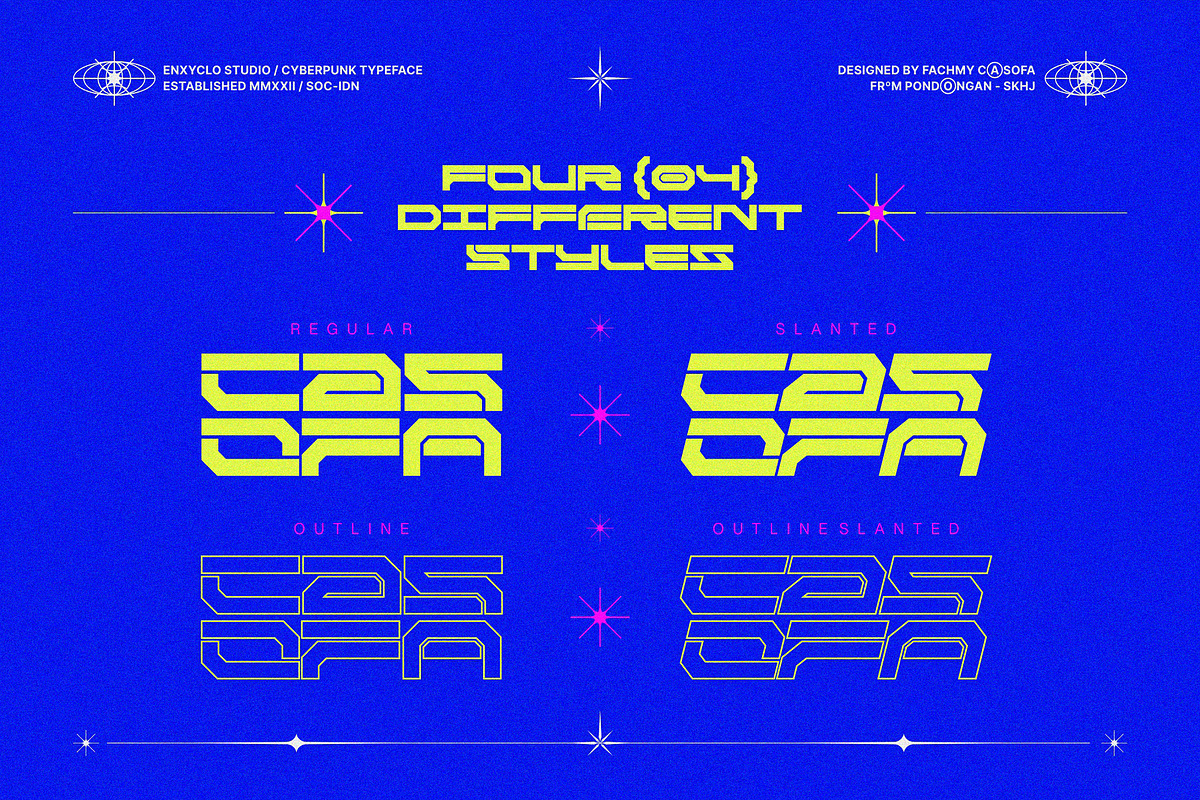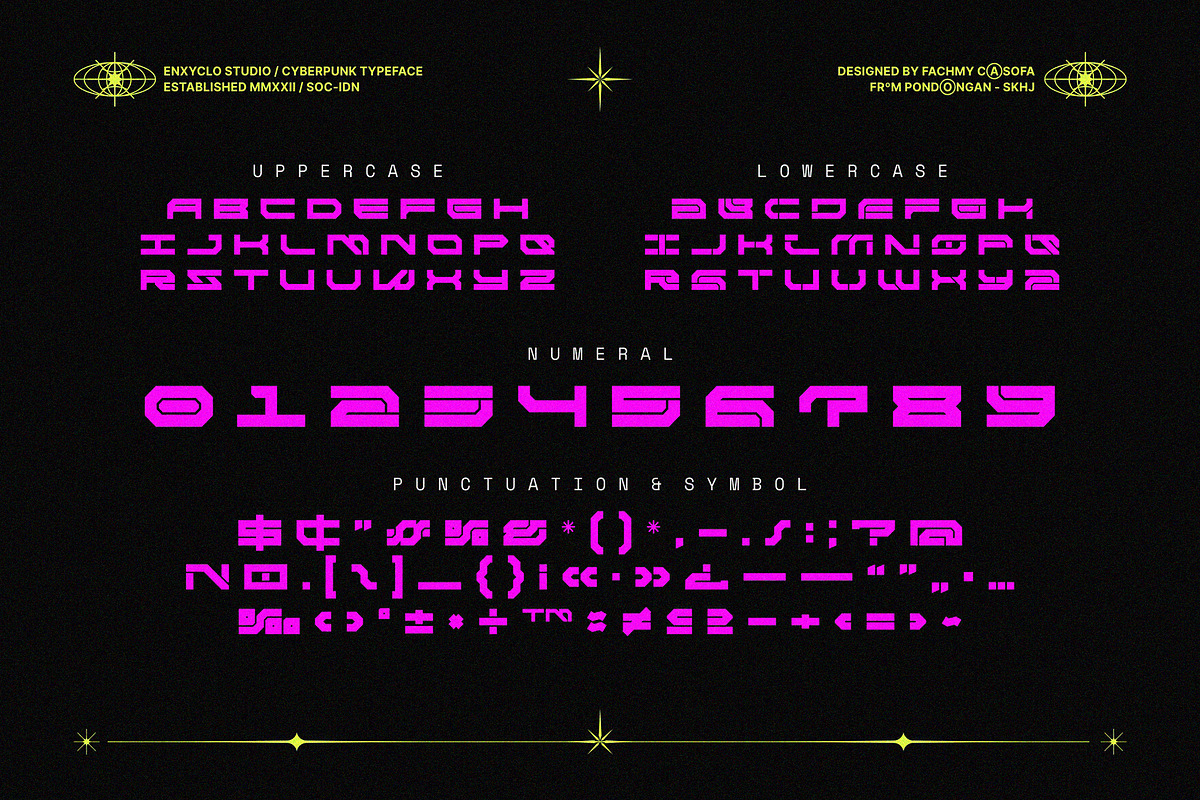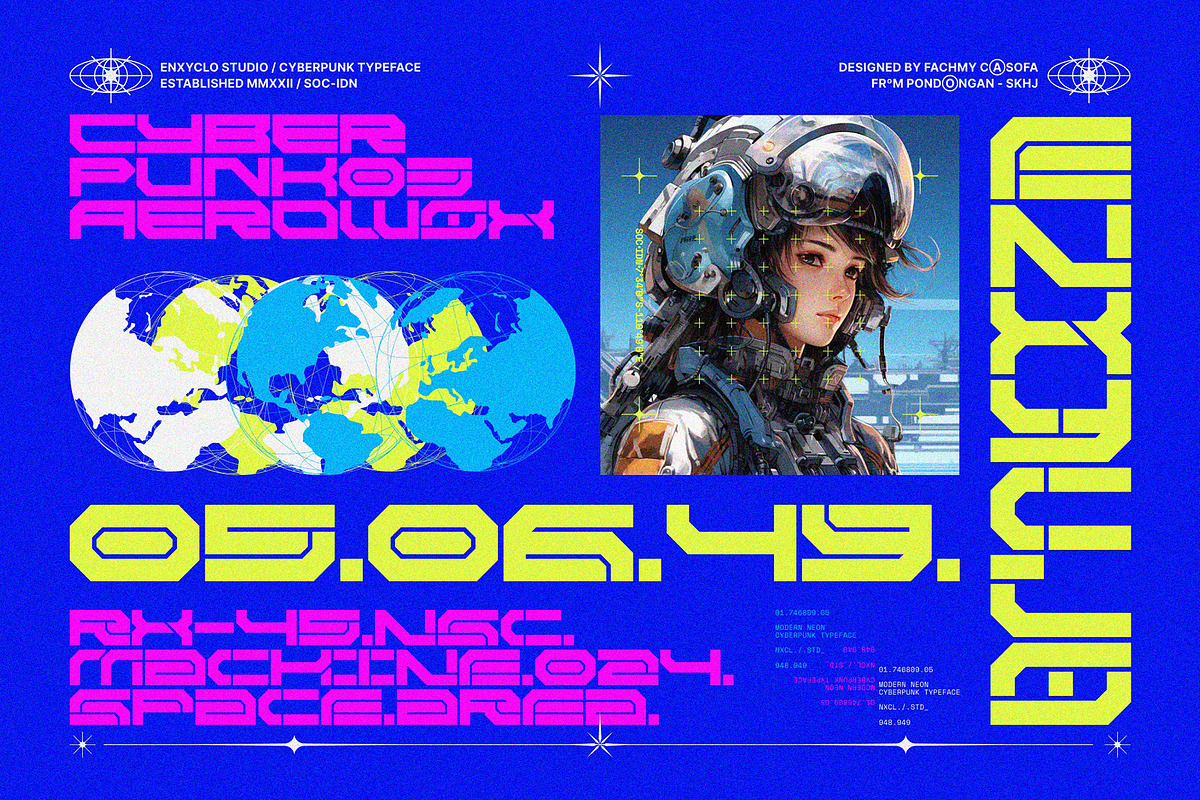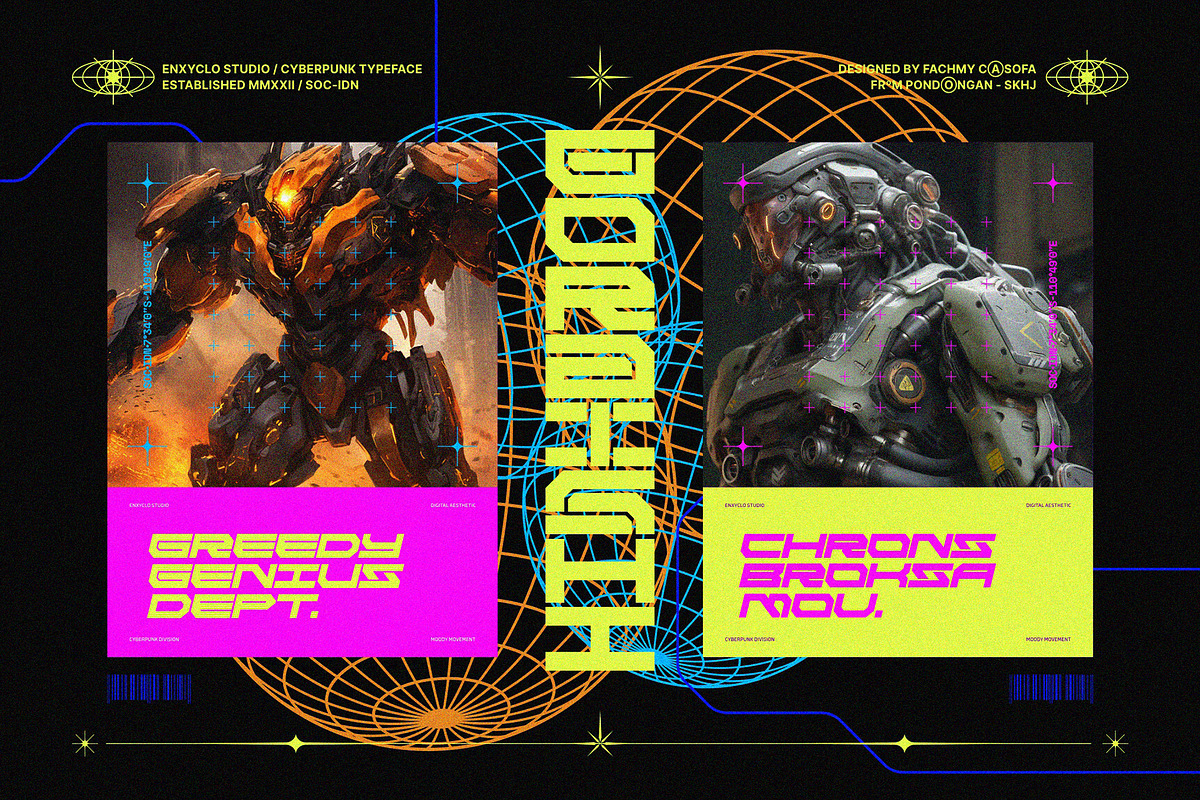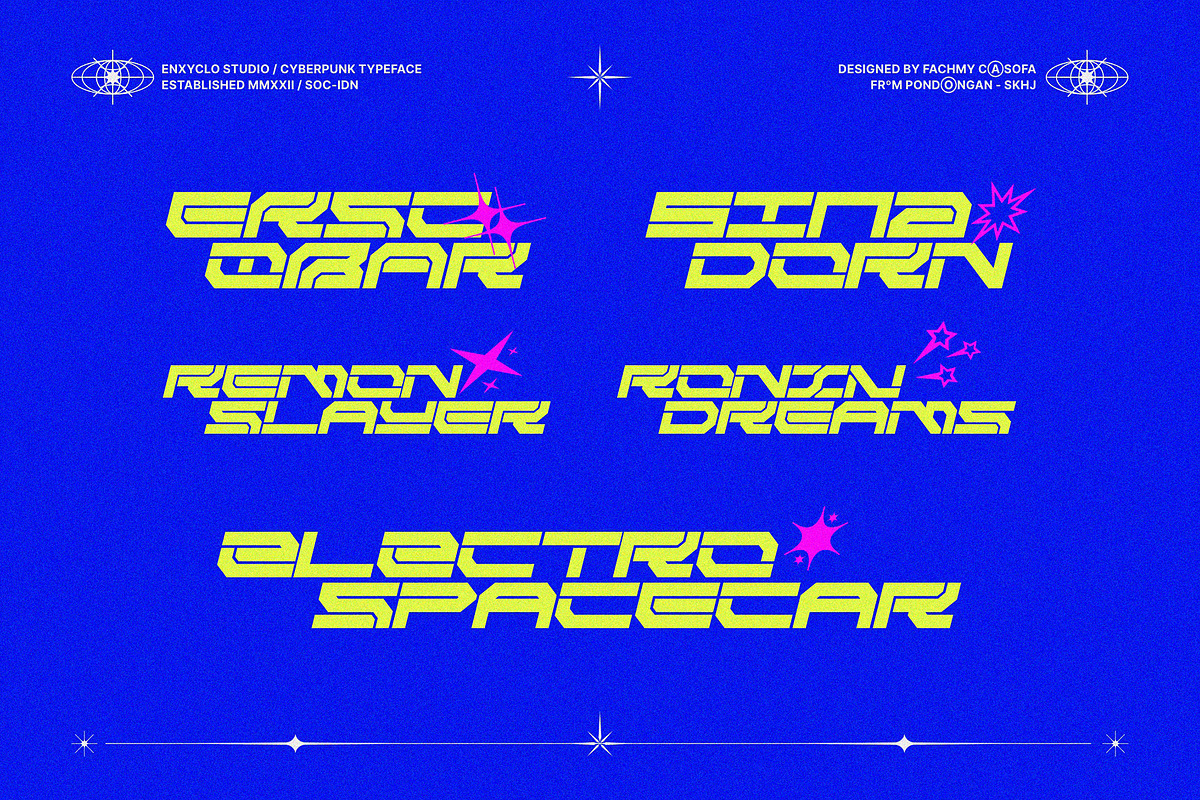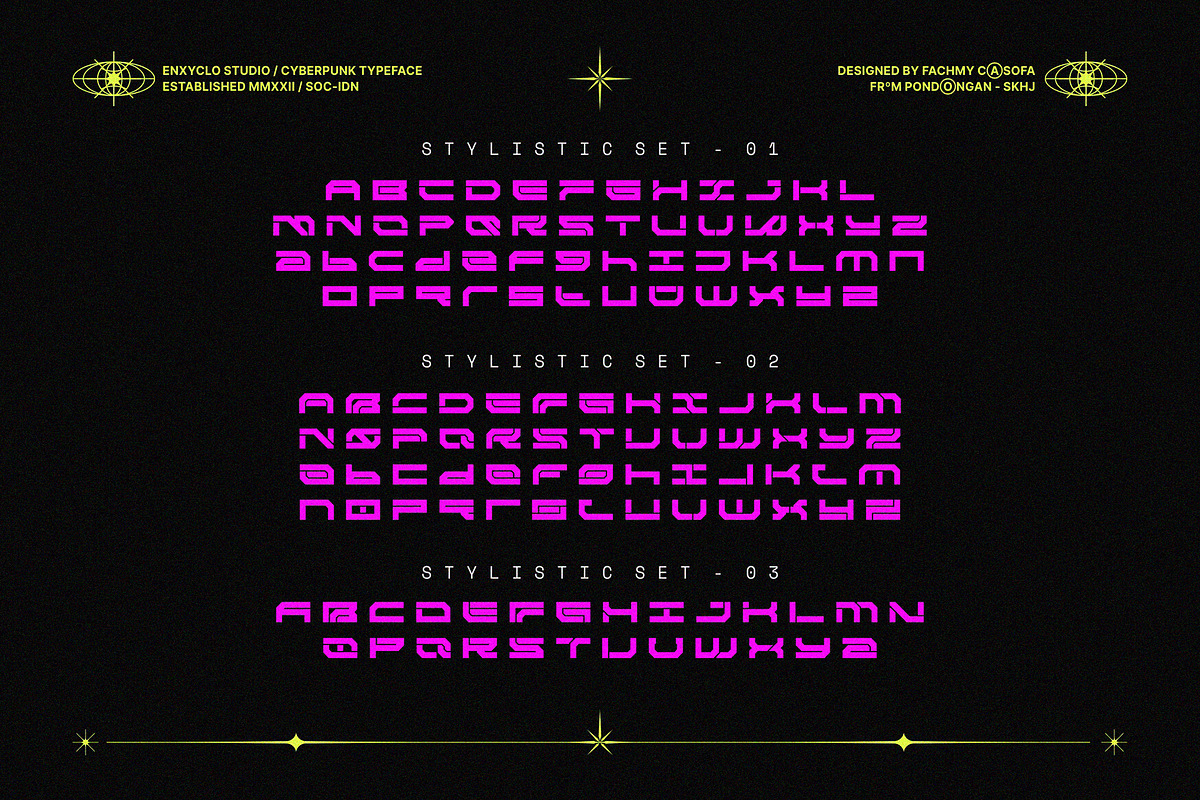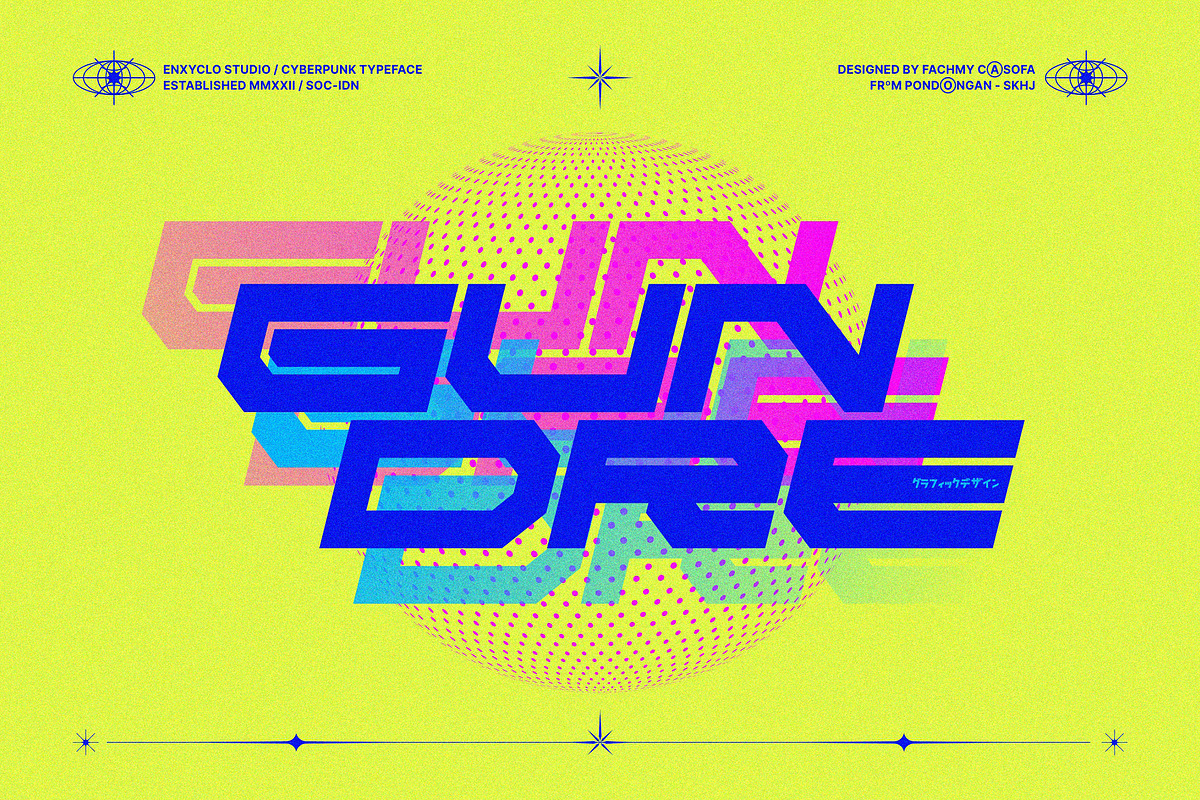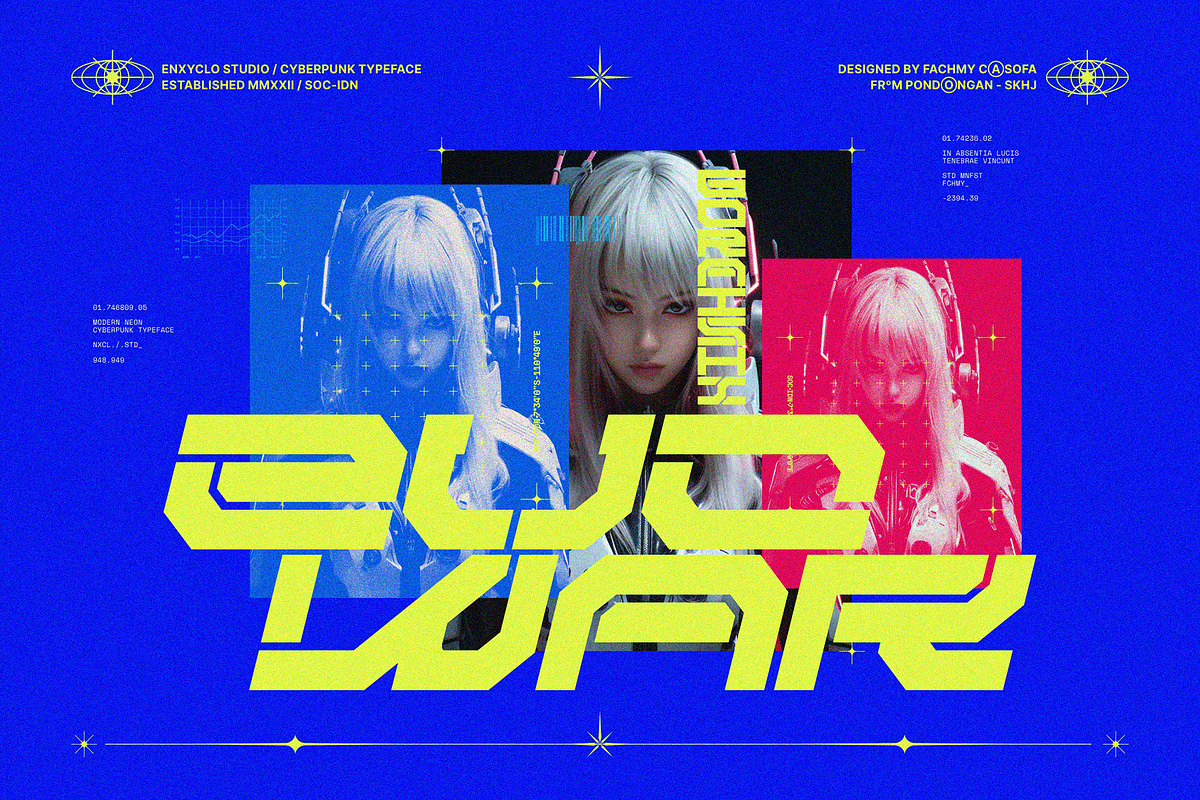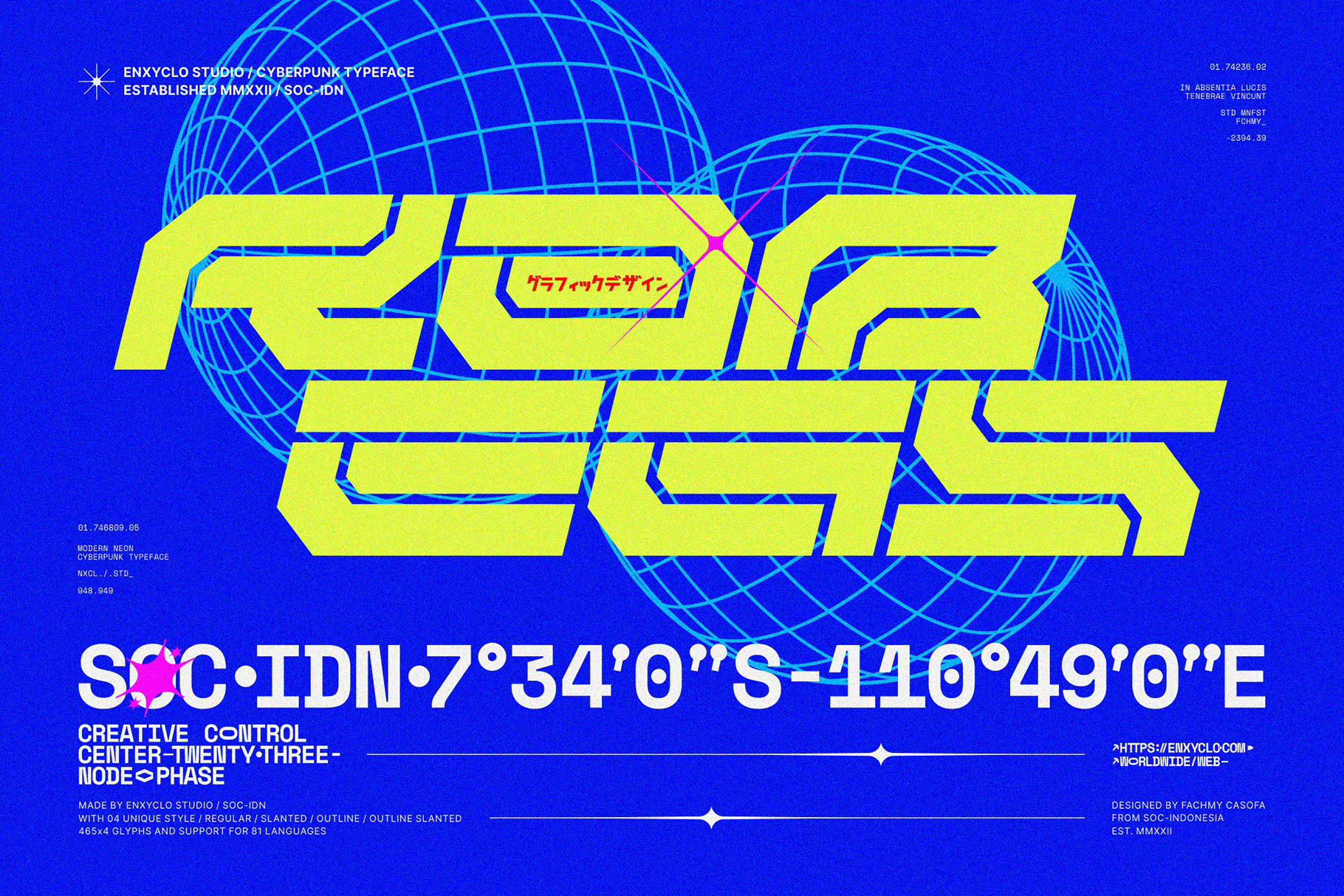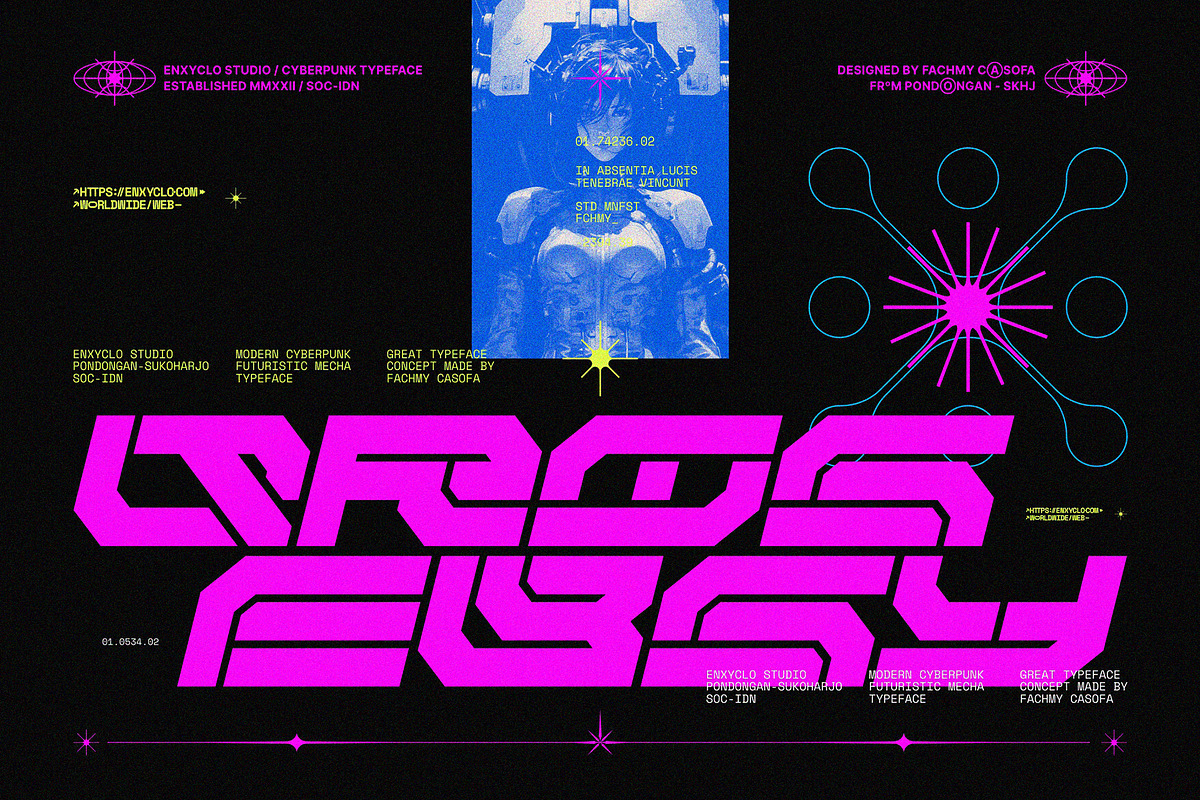
NCL RABEGS - Cyberpunk Font
NCL RABEGS is not your ordinary font; it’s a cyberpunk futuristic techno mecha font that takes your creativity to the next level. Its futuristic aesthetics bring a whole new dimension to your designs, making them stand out. Whether you’re working on a website, poster, logo, or any other project, this font adds that extra touch of innovation and sophistication.
4 Style: Regular, Slanted, Outline, Outline Slanted
Contains 465 Glyphs for Each Style and 1860 Glyphs for Total
Numeral, Punctuation & Symbols
Stylistic Set 1-3
Support for 81 Languages: Afrikaans, Albanian, Asu, Basque, Bemba, Bena, Breton, Catalan, Chiga, Cornish, Croatian, Czech, Danish, Dutch, Embu, English, Esperanto, Estonian, Filipino, Finnish, French, Friulian, Galician, Gusii, Hungarian, Indonesian, Irish, Italian, Kabuverdianu, Kalenjin, Kamba, Kikuyu, Kinyarwanda, Latvian, Lithuanian, Luo, Luxembourgish, Luyia, Machame, Makhuwa-Meetto, Makonde, Malagasy, Manx, Meru, Morisyen, North Ndebele, Norwegian Bokmål, Norwegian Nynorsk, Nyankole, Oromo, Portuguese, Quechua, Romansh, Rombo, Rundi, Rwa, Samburu, Sango, Sangu, Scottish Gaelic, Sena, Serbian, Shambala, Shona, Slovak, Soga, Somali, Spanish, Swahili, Swedish, Swiss German, Taita, Teso, Turkish, Uzbek (Latin), Volapük, Vunjo, Walser, Welsh, Western Frisian, Zulu.